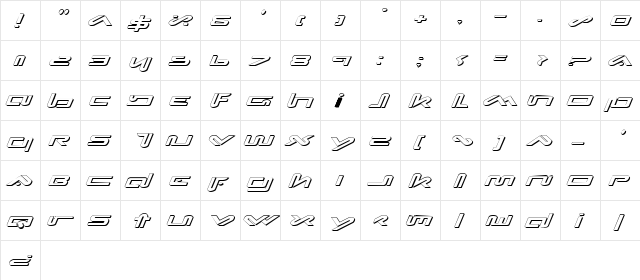
Xephyr Expanded Shadow Italic Expanded Shadow Italic
Design Context for Xephyr Expanded Shadow Italic Typeface
Xephyr Expanded Shadow Italic is built around its visual character rather than neutral utility — its distinctive forms are designed to make an impression at display sizes. Its italic angle brings a sense of urgency and motion to the letterforms.
Font Pairing: Pair with a clean neutral sans-serif for body copy to let Xephyr Expanded Shadow Italic's character lead without overwhelming the composition.
Pro Tip: Use Xephyr Expanded Shadow Italic exclusively at display sizes — it was designed to be seen, not read at length. Let a neutral companion handle body copy.